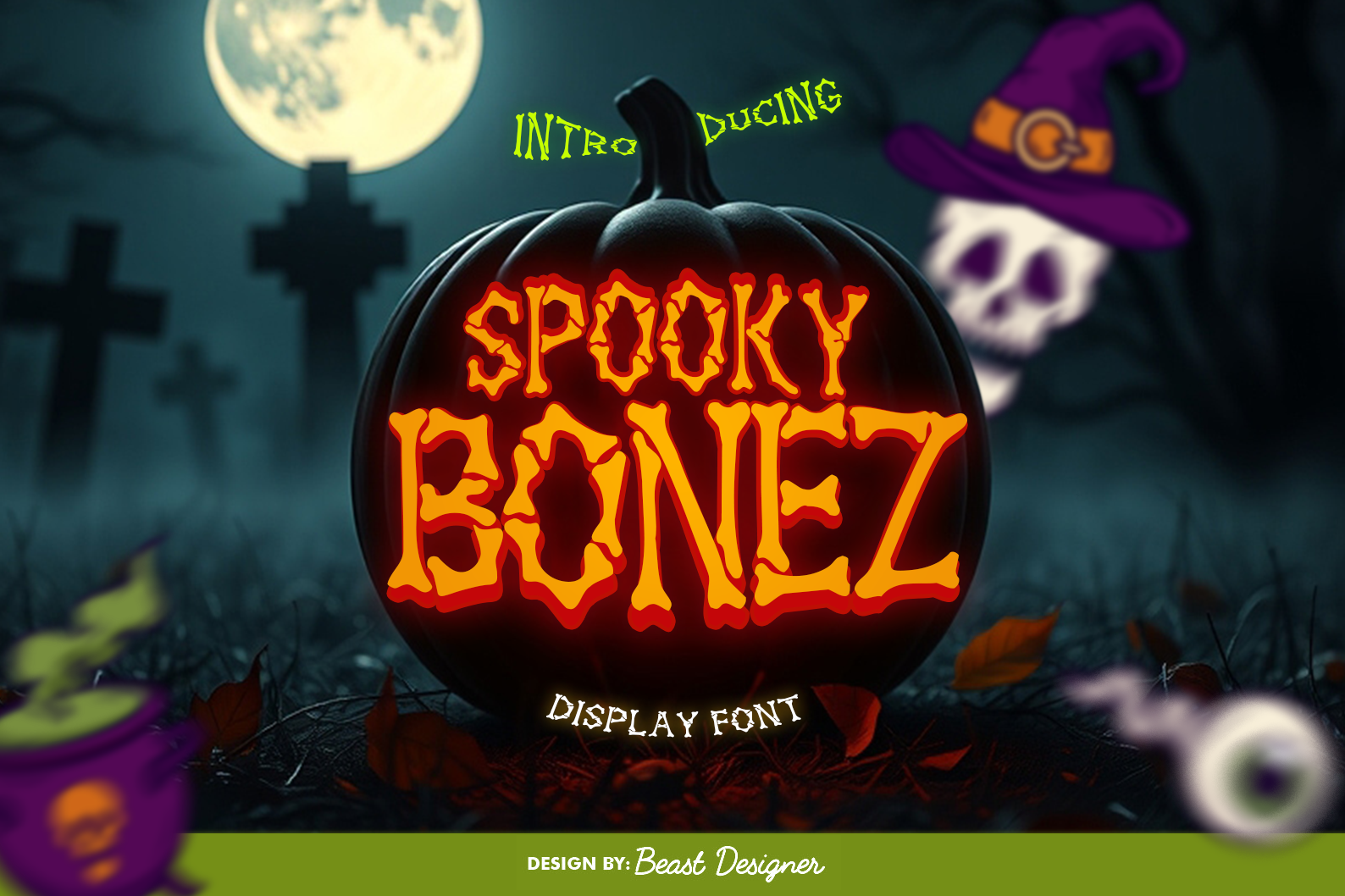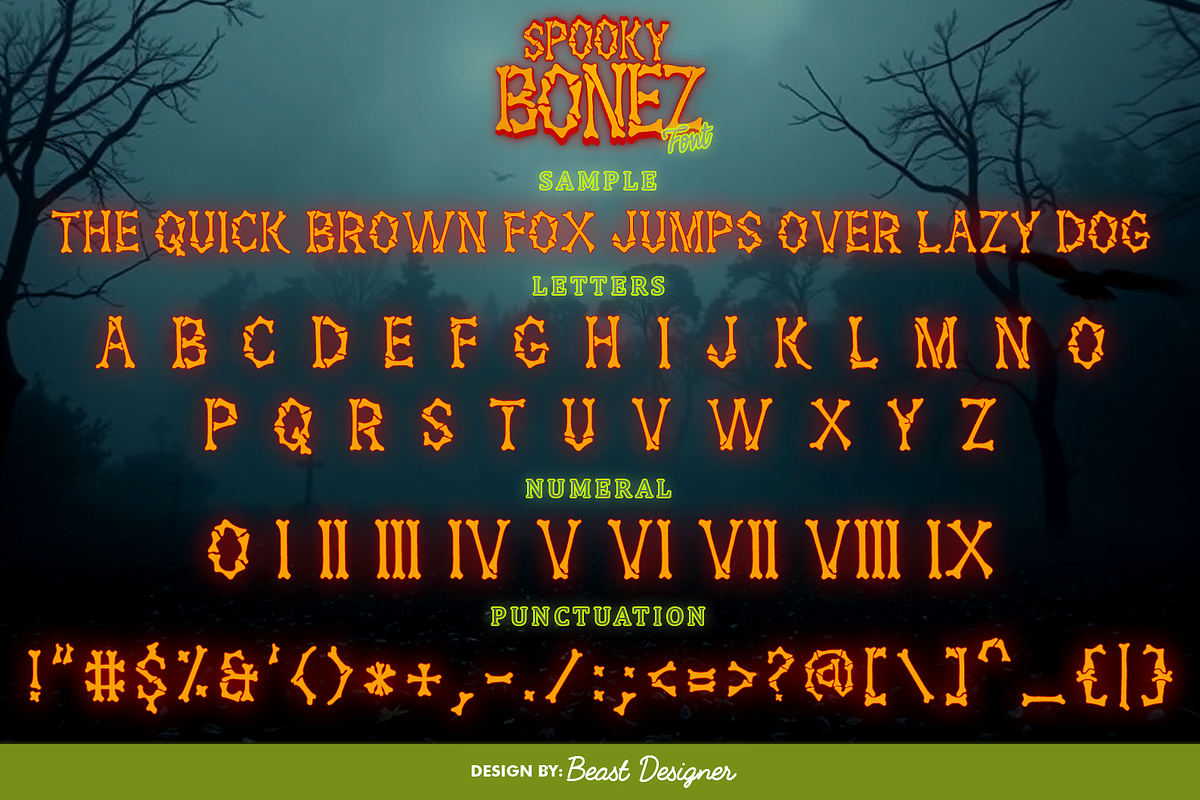
SpookyBonez Halloween Creepy Font
Get in the Halloween spirit with SpookyBonez Font, a creepy bone-style Halloween font perfect for horror posters, spooky party invites, haunted house flyers, t-shirts, and digital designs. Each letter looks hand-carved from bones, giving your text a terrifying yet playful Halloween vibe. Ideal for creators, crafters, and graphic designers who want to add a spooky, eerie, and bone-chilling touch to their projects.
Use SpookyBonez Halloween Font for:
- Halloween graphics & decorations
- Scary movie titles & YouTube thumbnails
- Cricut, Silhouette & print-on-demand projects
Bring your Halloween designs to life with the ultimate spooky bone lettering font — fun, bold, and hauntingly unique!